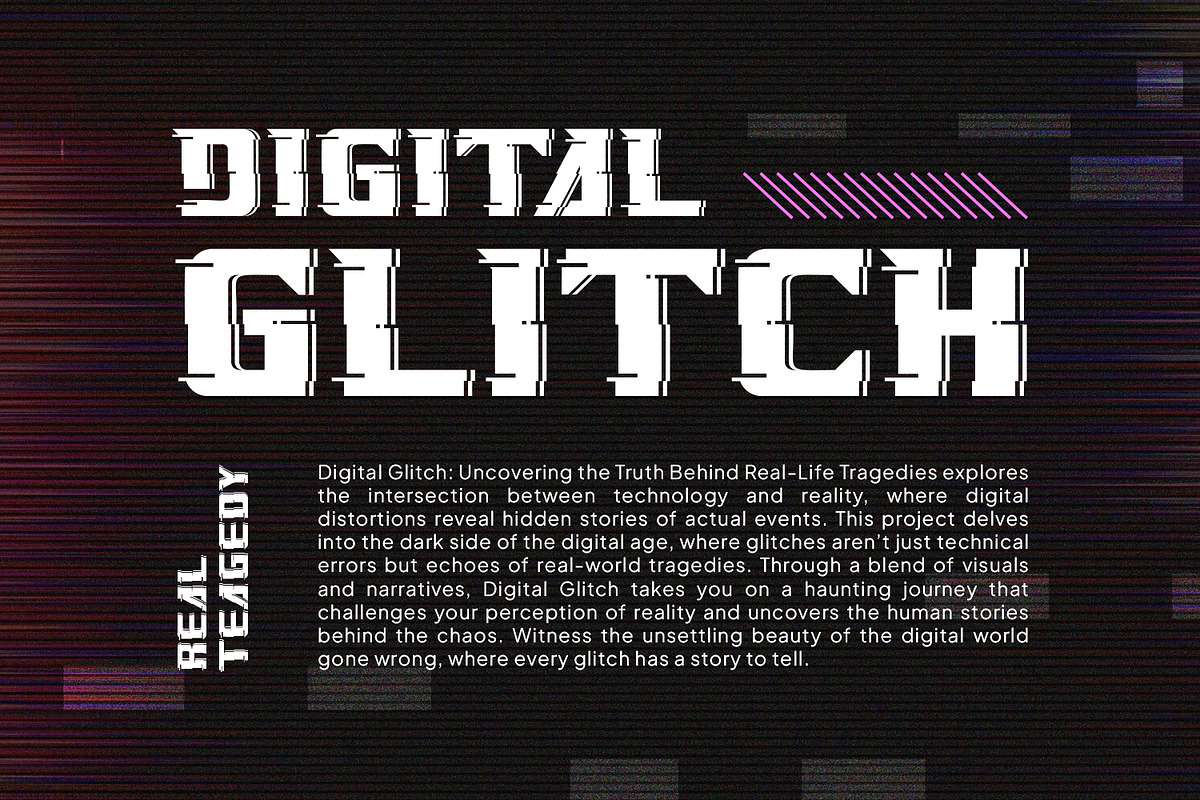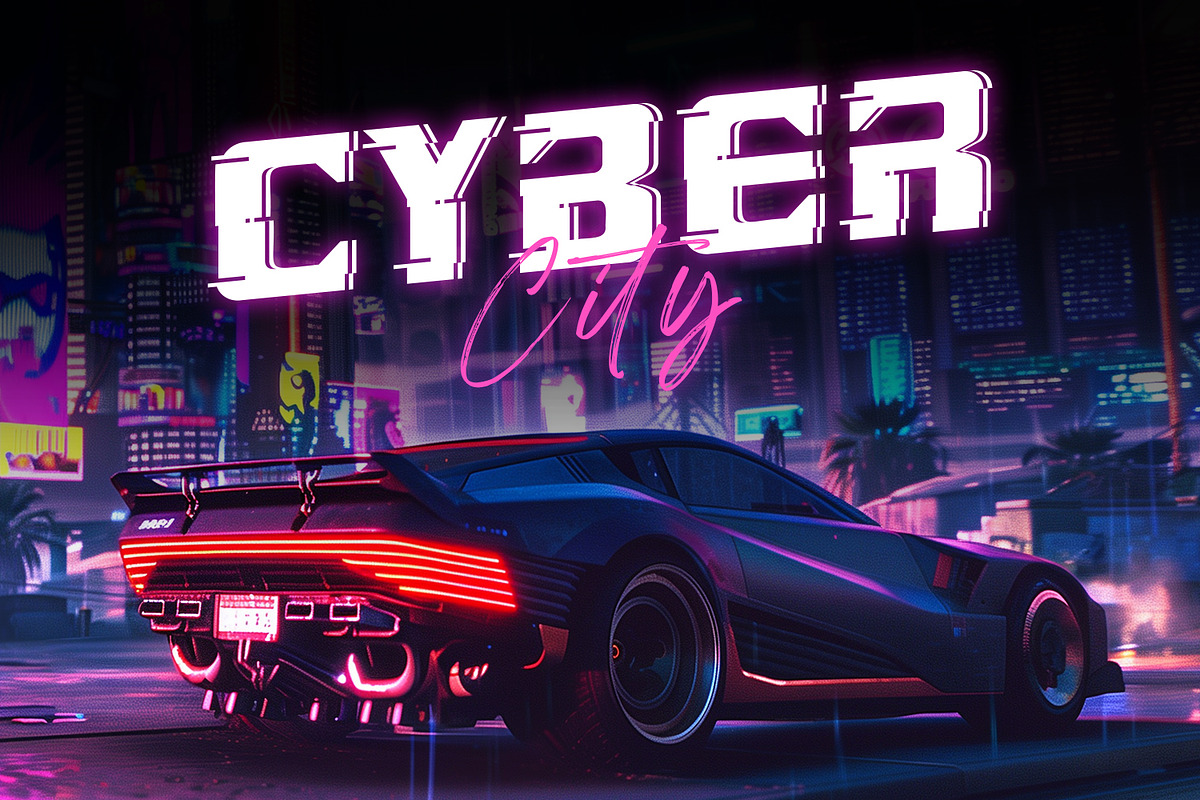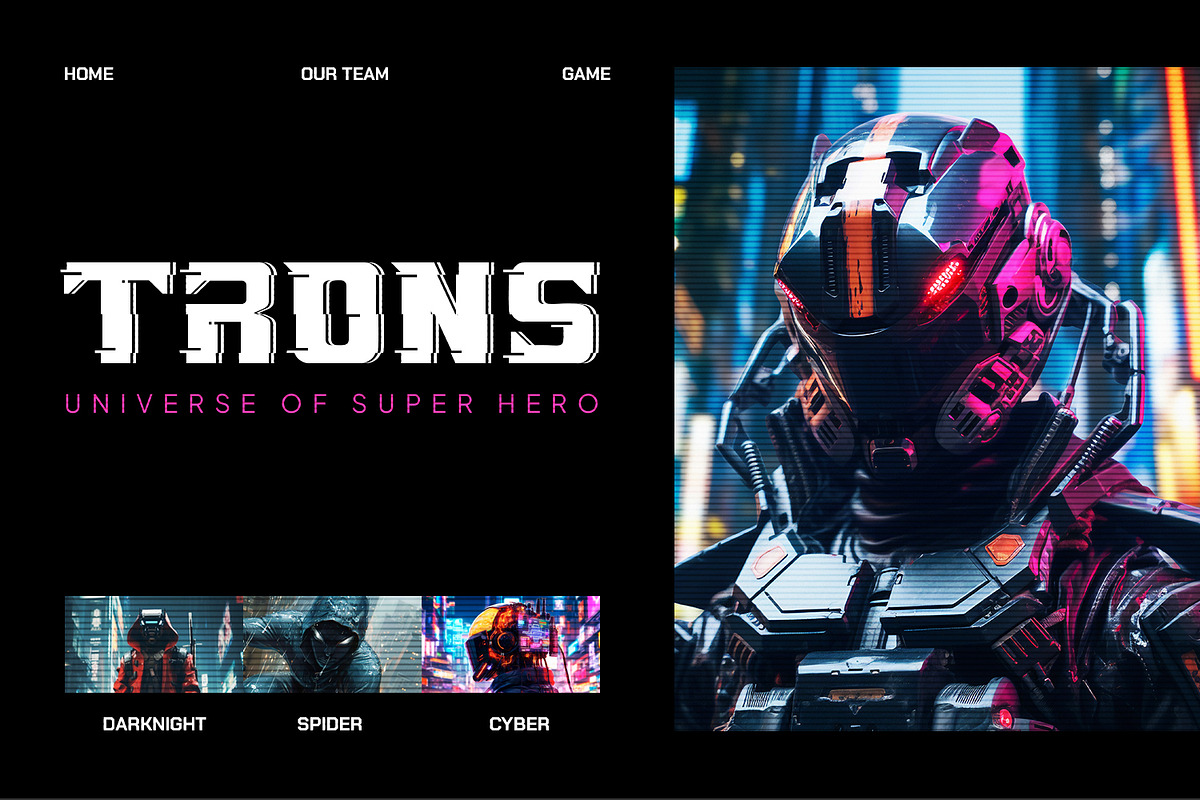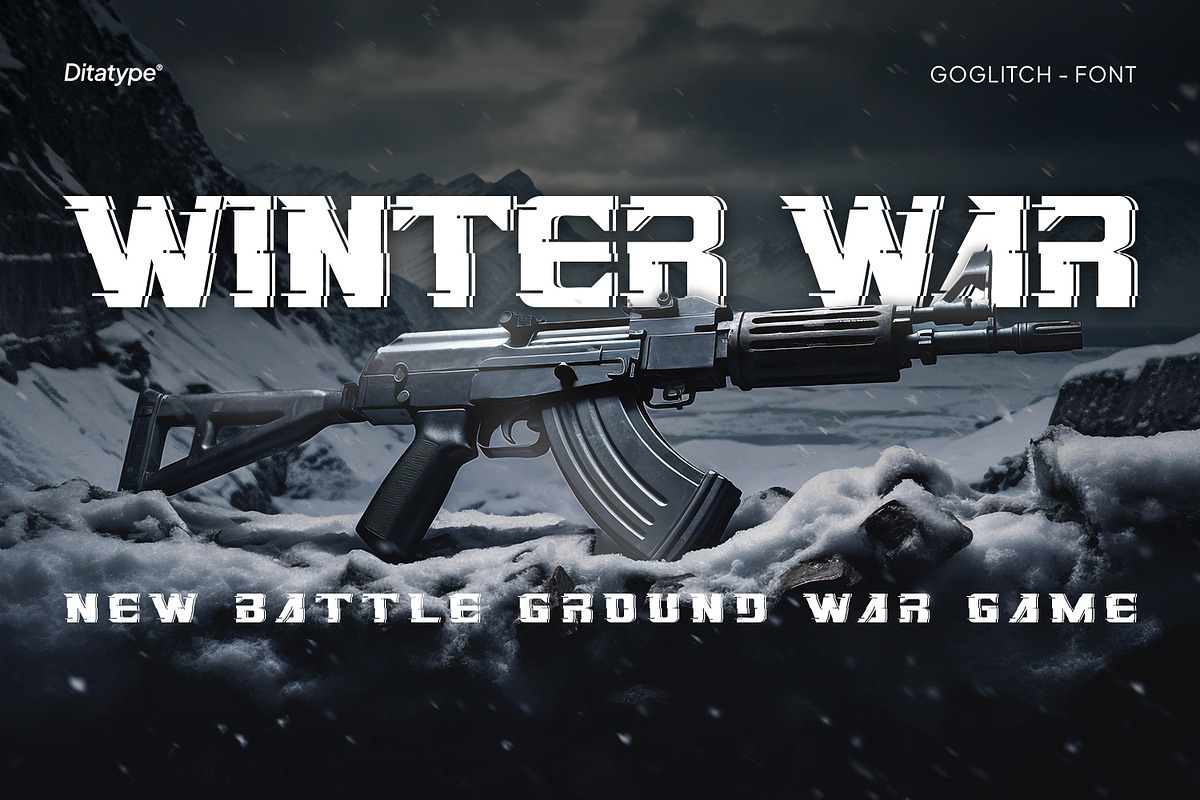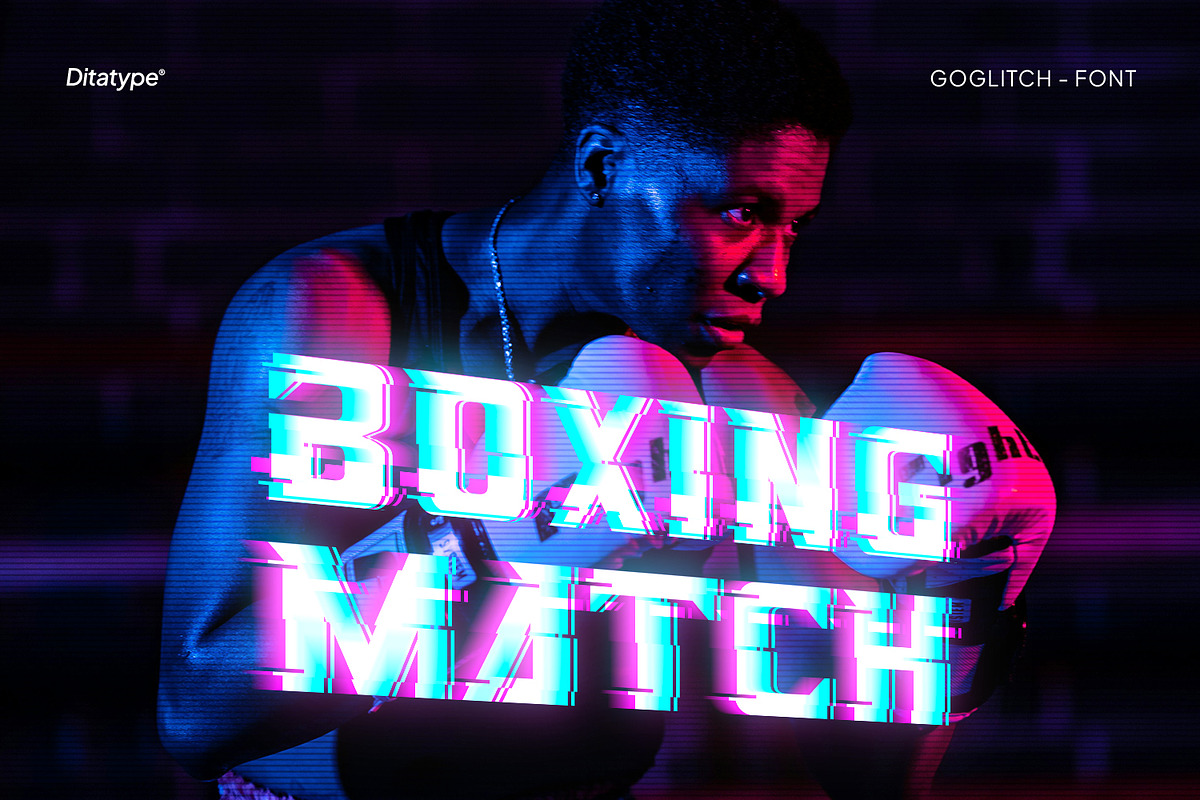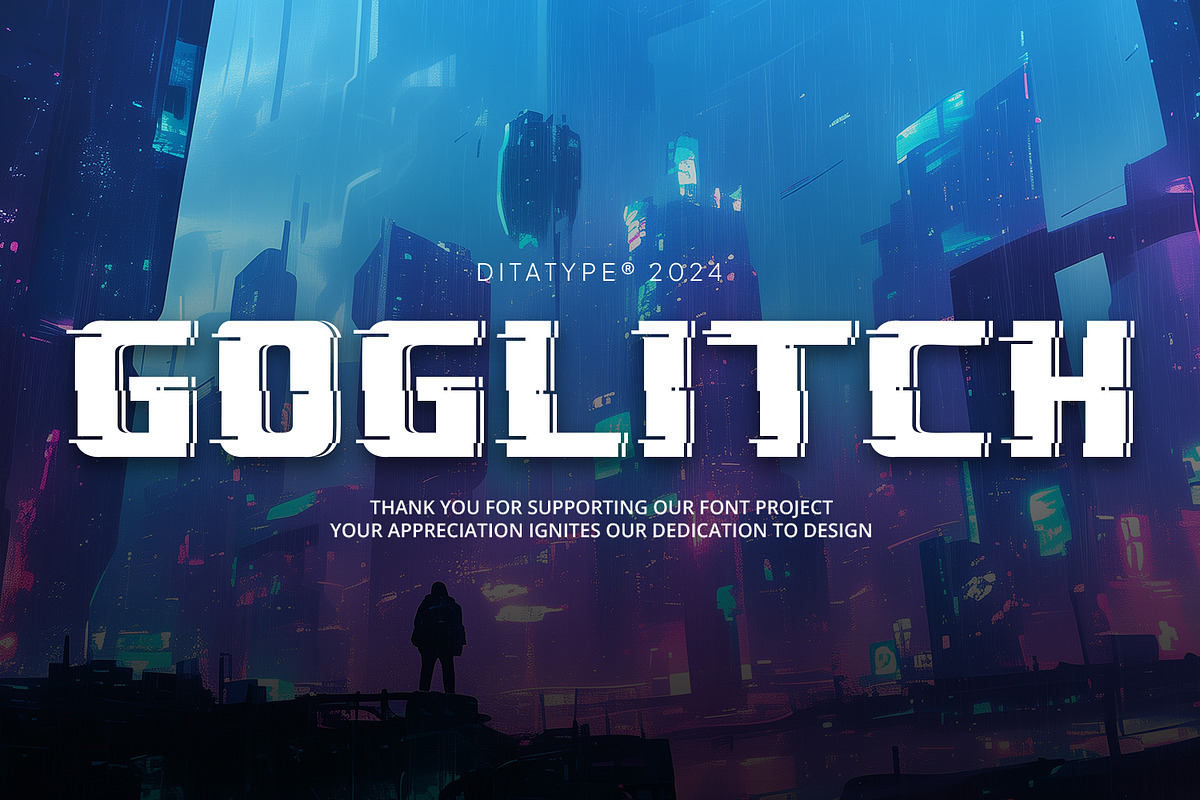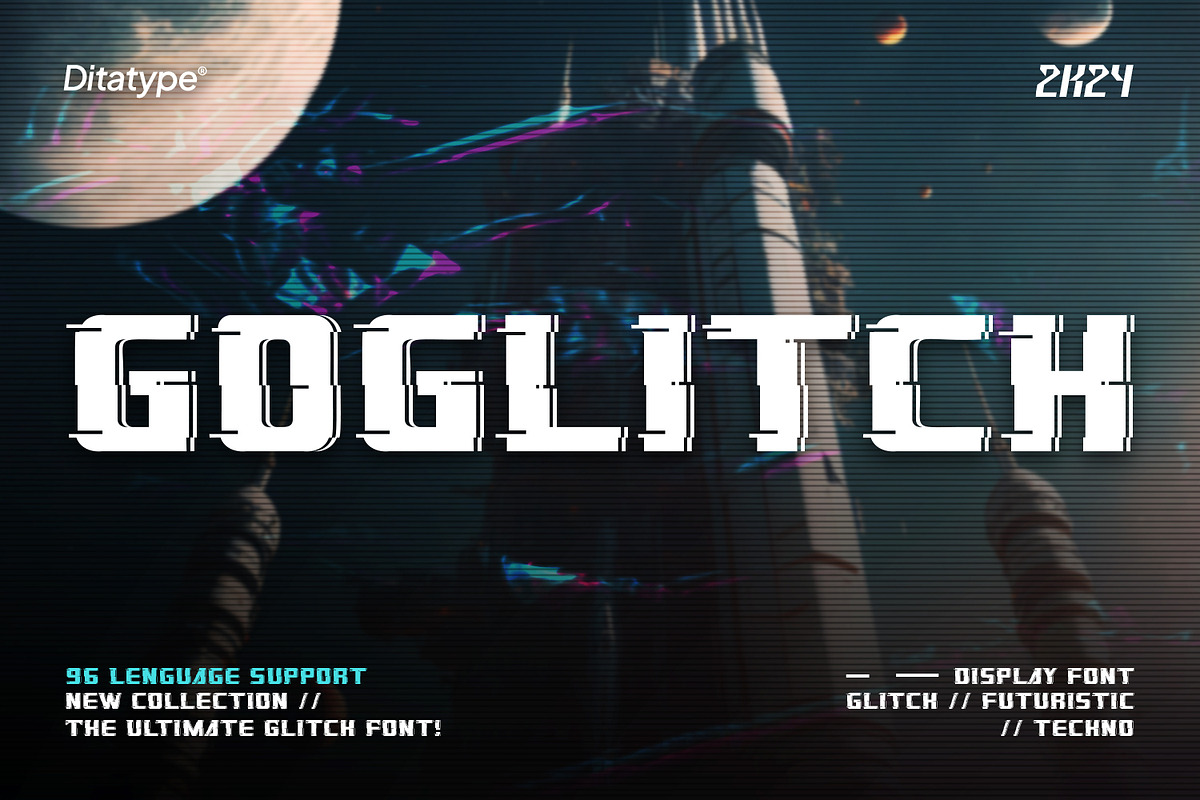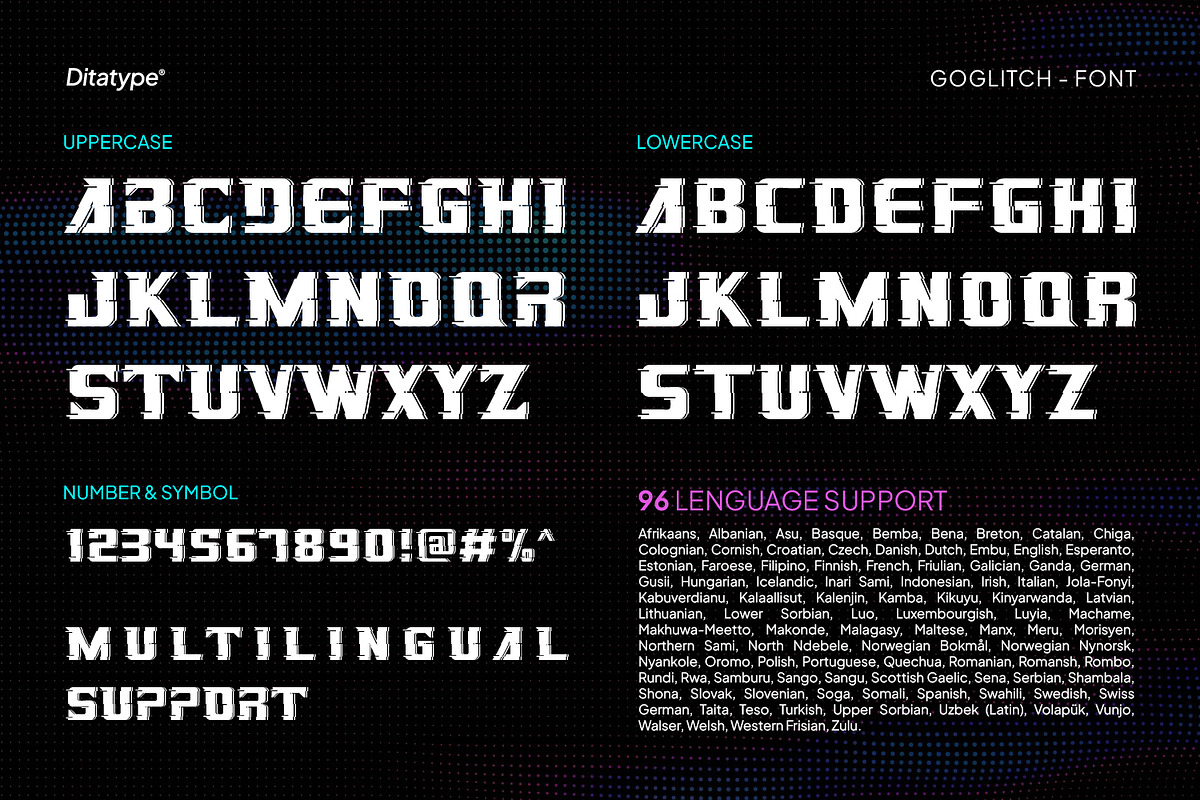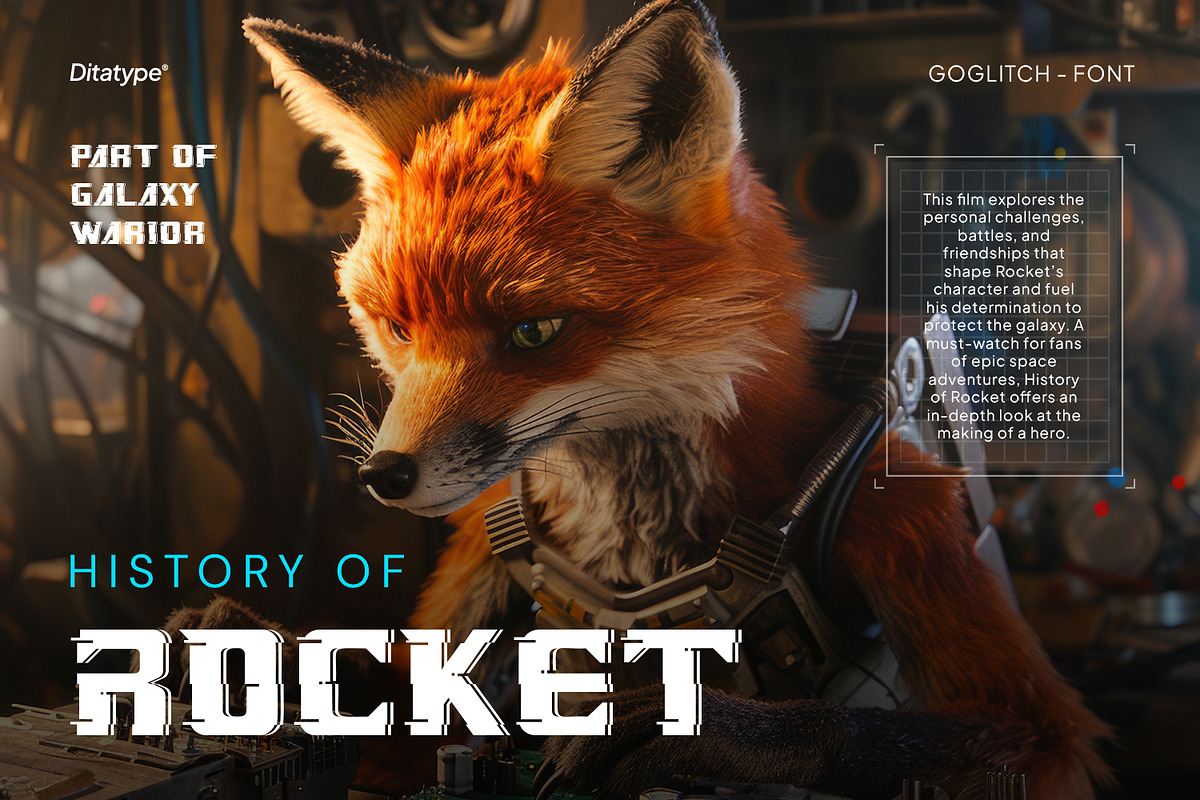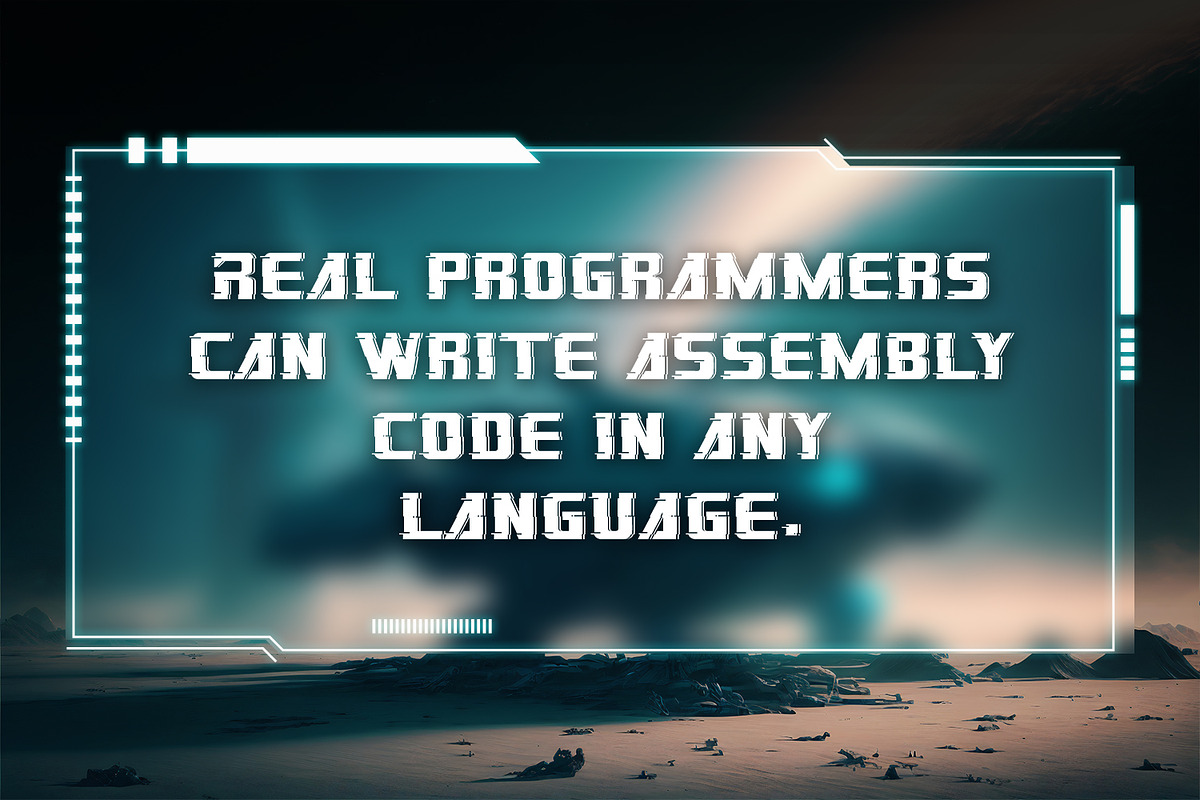
Goglitch
Introducing Goglitch – a bold, futuristic display font that commands attention. Designed in all caps, Goglitch features a strikingly bold weight that enhances its modern, high-tech aesthetic. Its futuristic style, characterized by sharp angles and innovative design elements, makes it perfect for sci-fi themed designs. Goglitch adds a bold, forward-thinking flair to your creative endeavors. In addition, enjoy the features here.
Goglitch fits in logos, posters, flyers, branding materials, print media, editorial layouts, and many more designs. Find out more ways to use this font by taking a look at the font preview.